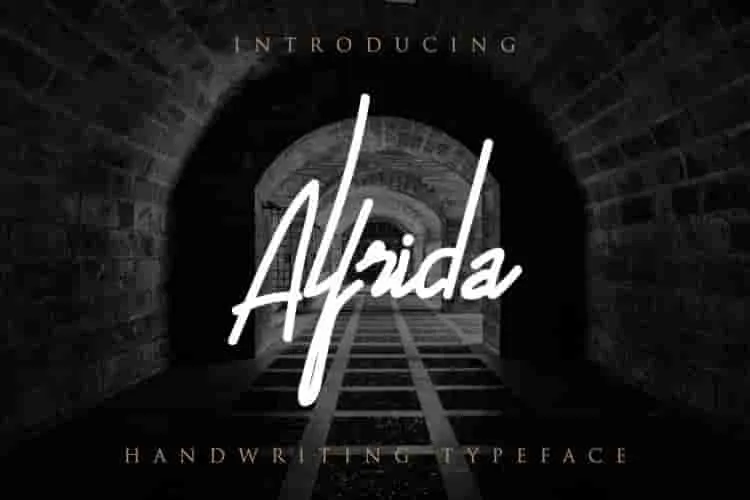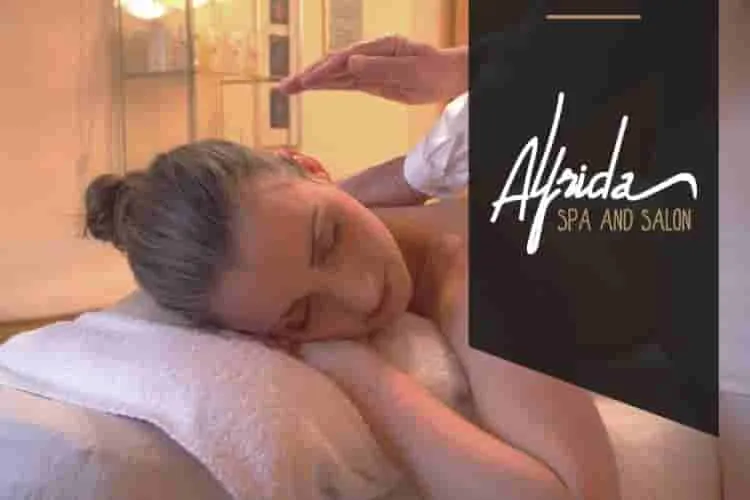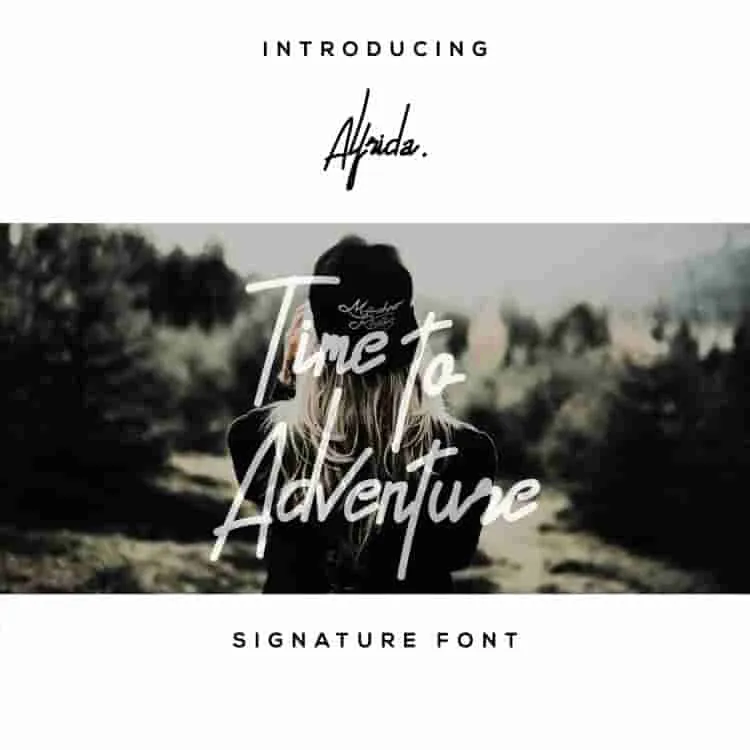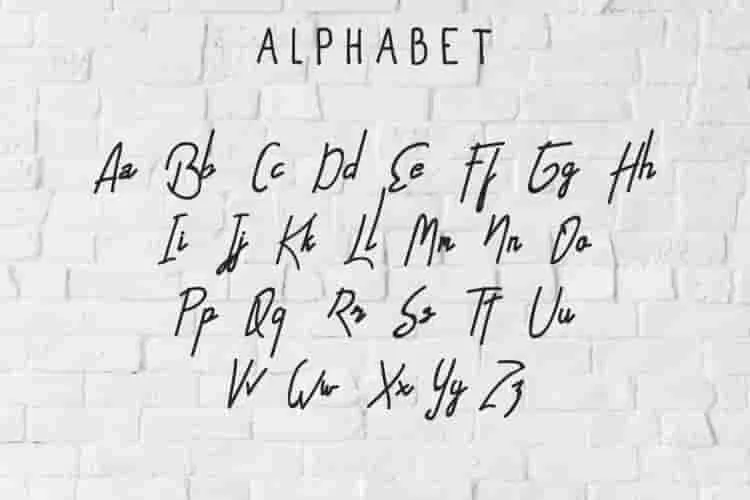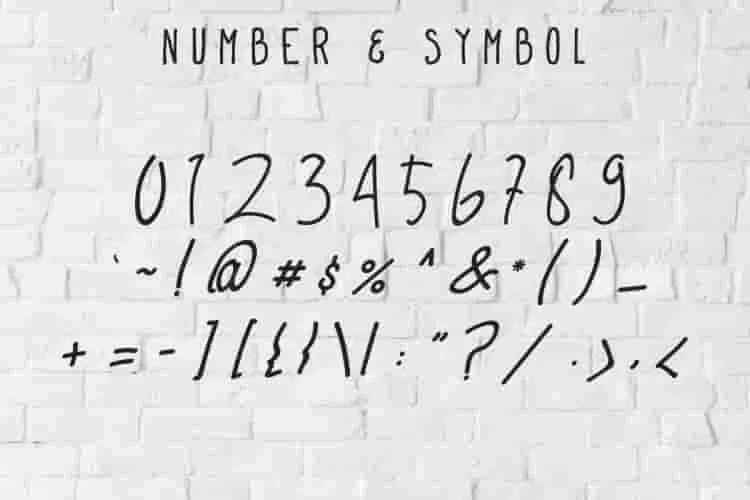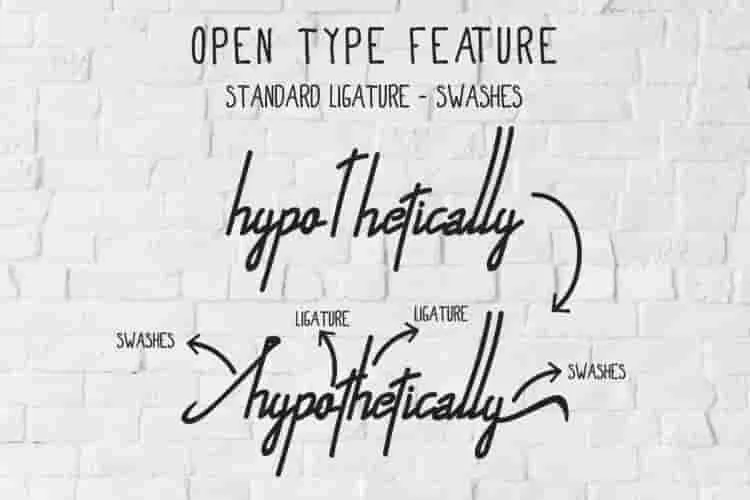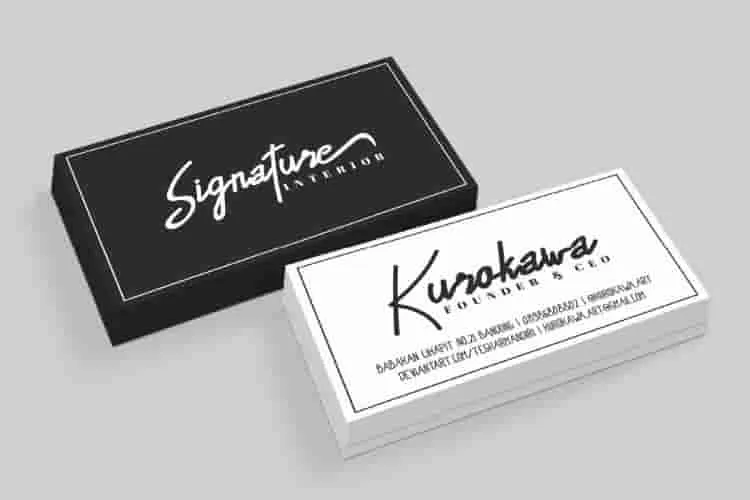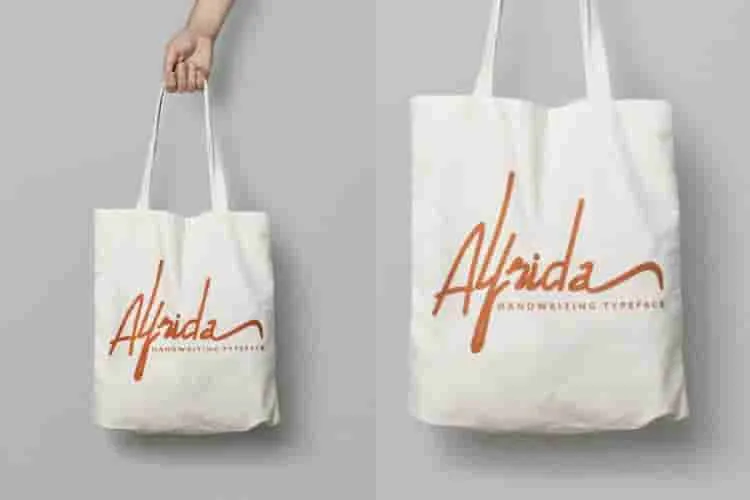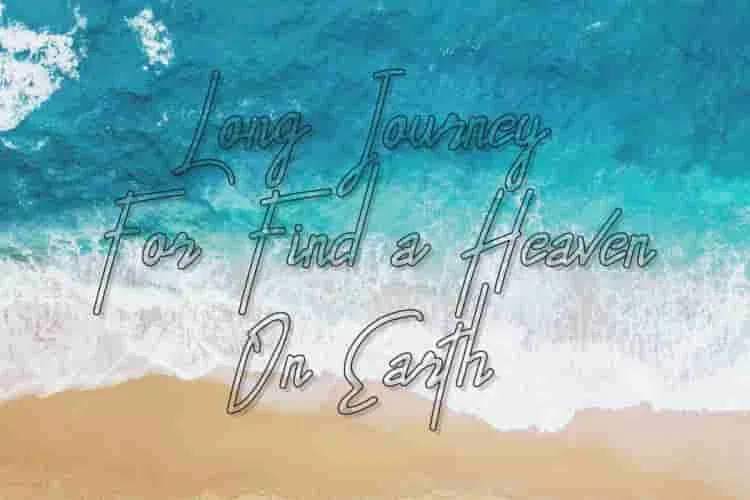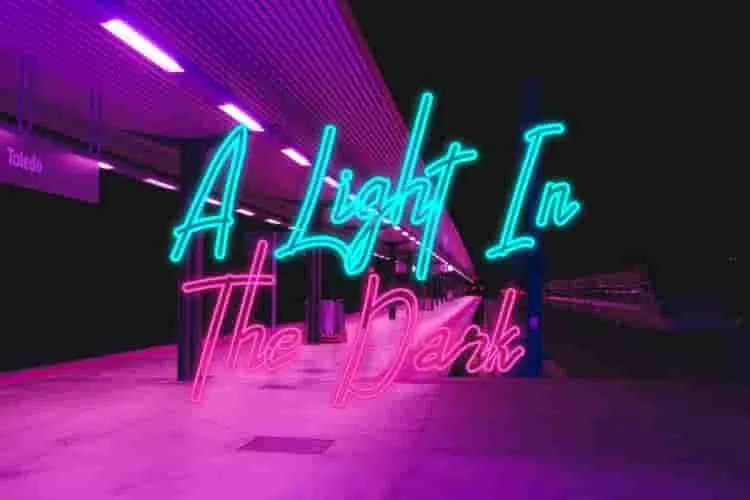
Alfrida Signature Script Font
Alfrida Signature Script Font. a stunning signature script font designed to bring elegance and personality to every project. With its flowing, hand-drawn style and natural charm, Alfrida is the perfect choice for creatives who want to add a refined, handwritten touch to their work.
It will be great for photography, wedding, invitation, watermark, signature online, logo, promo, boutique, fashion, designer, photographer, beauty skin car, hair salon, architect, hand written, hand made, handrawn. Its delicate swashes and stylish ligatures create a signature-like effect—perfect for personal branding or any high-end, feminine, or artistic visual identity.
Why Choose Alfrida Script Font?
• ✒️ Elegant handwritten signature style
• ✒️ Includes swashes & ligatures for a personalized, flowing look
• ✒️ Ideal for wedding stationery, photographers, boutique branding, fashion blogs, and more
Whether you’re a designer, stylist, architect, or beauty brand, Alfrida helps you stand out with class and creativity. It adds a human touch to digital designs and looks beautiful on both print and web projects.